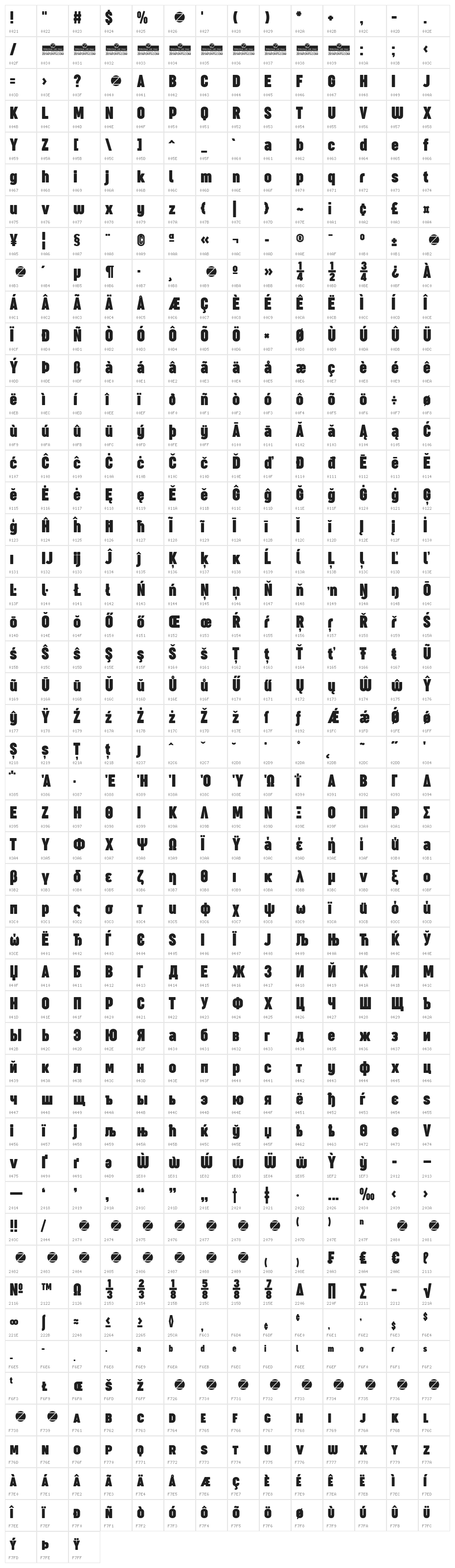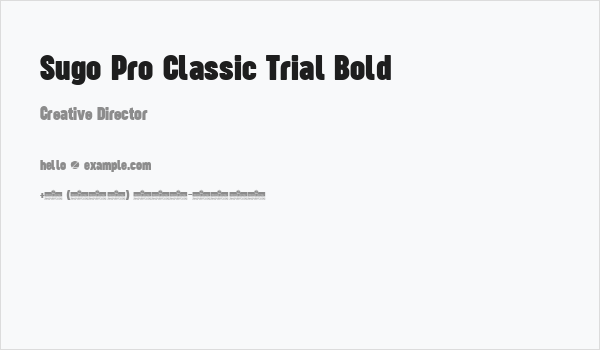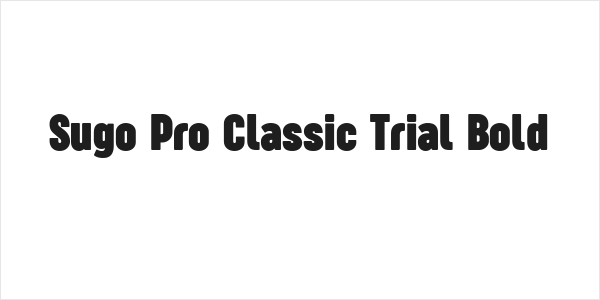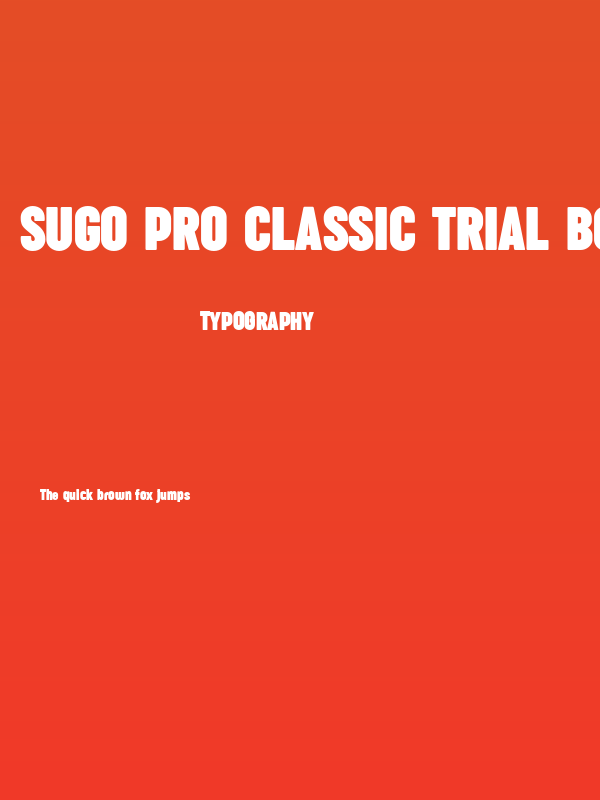
Sugo Pro Classic Trial Bold Font
Sugo Pro Classic Trial Bold Description
This font features a bold, impactful style with thick, uniform strokes that convey strength and confidence. The uppercase and lowercase letters are designed with a consistent weight, offering a robust appearance suitable for attention-grabbing headlines. The characters are slightly condensed, enhancing their bold presence without compromising readability. The font includes a full set of uppercase and lowercase letters, numbers, and a variety of special characters, making it versatile for various design needs. Its strong geometric shapes and clean lines give it a modern and professional look, ideal for branding and advertising.
| Proposed Projects | Ideal for branding, advertising, posters, and any project requiring a strong visual impact. |